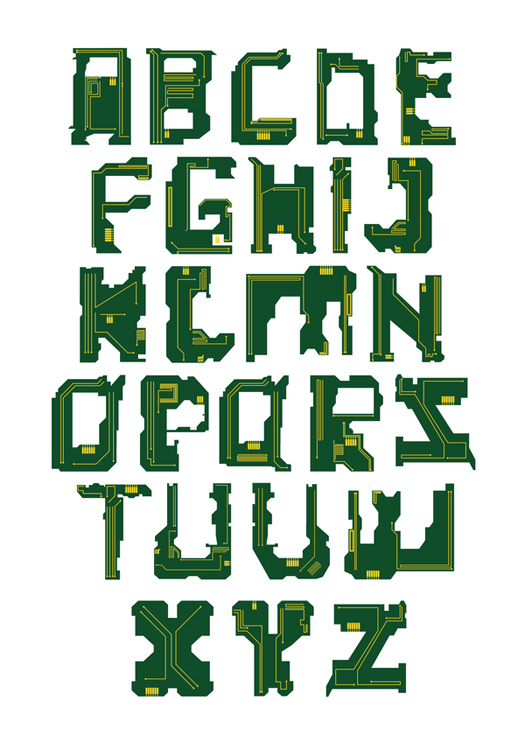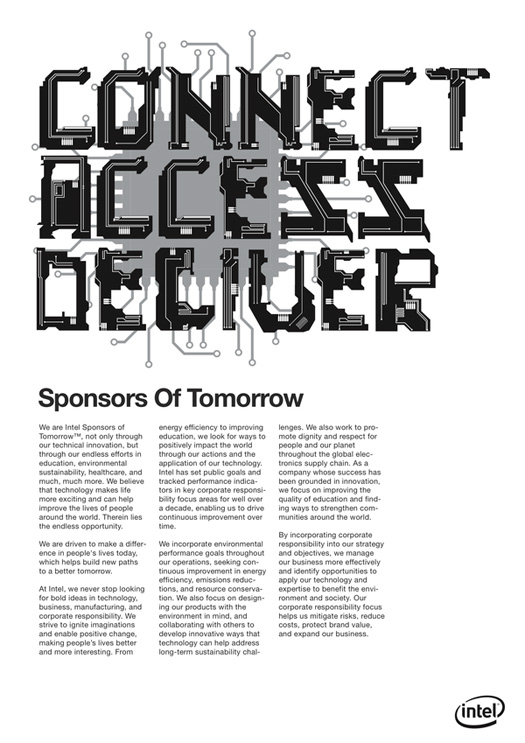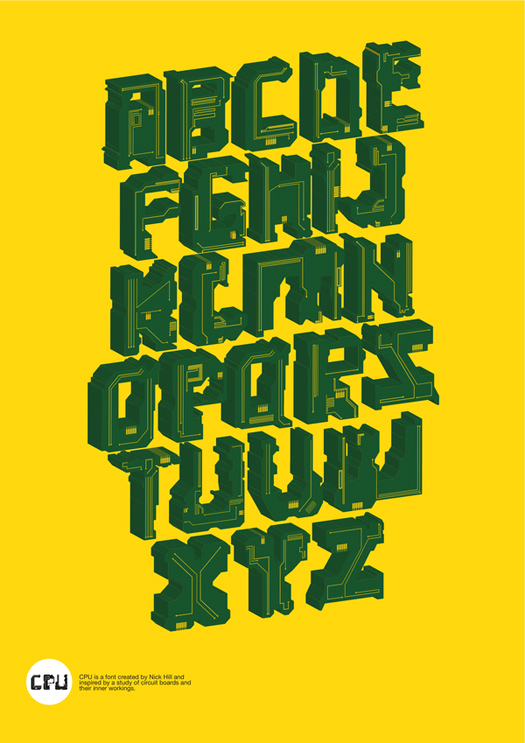
CPU
Typeface based on Silicon chips. As part of a school project i was asked to create a new typeface following a grid/ an object, i chose to create a typeface that resembles silicon chips.
Designer: Nick Hill